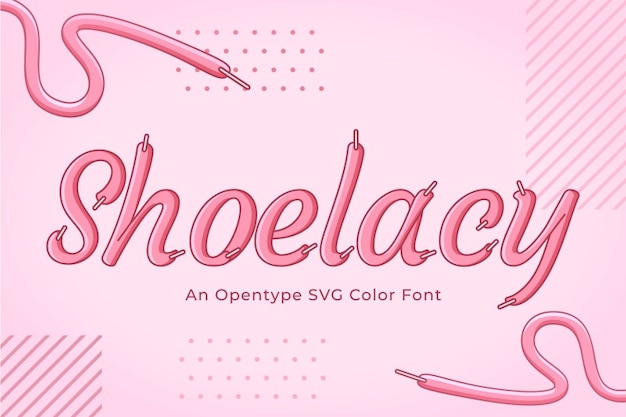
The font that's a cursive dance of aesthetic creativity, inspired by the twists and turns of shoelaces! Its design captures the whimsy of cursive handwriting with a unique twist. Perfect for projects seeking an artistic touch. Let "Shoelacy" tie together your creations with a touch of creative elegance.